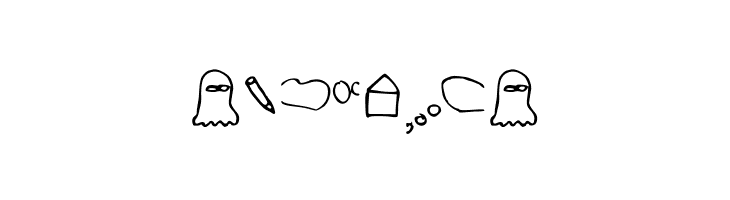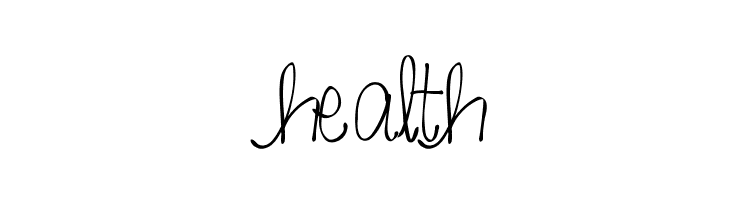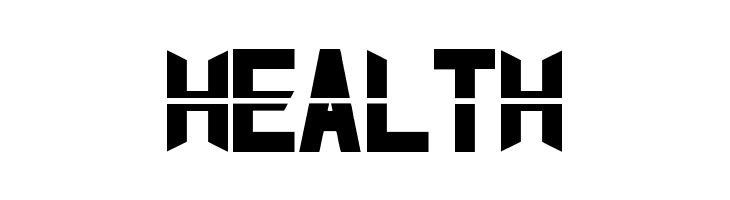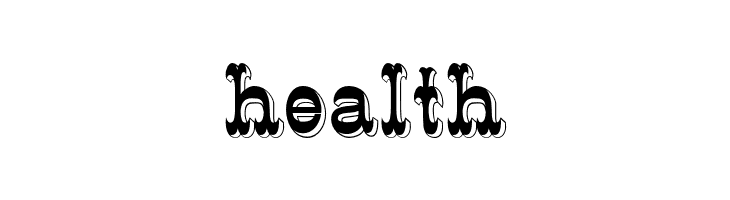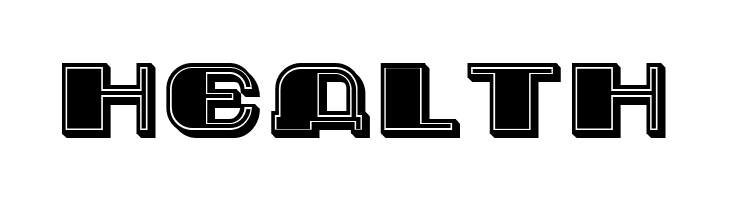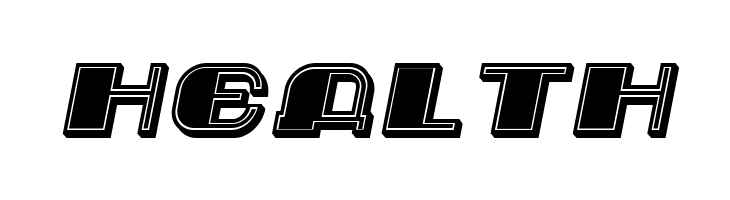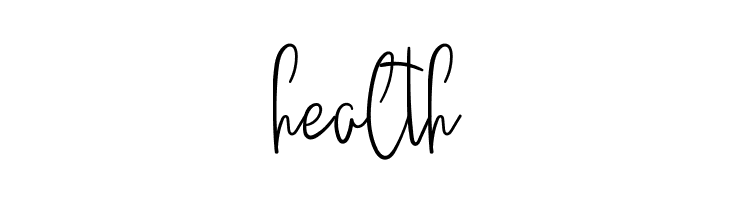
• Jurij Italic
A bold, italicized font with a three-dimensional outlined style.
• Jurij Regular
A bold, geometric font with a three-dimensional effect and strong visual impact.
• Just Be Demo Regular
A cursive, elegant font with flowing, interconnected characters.
• just symbols and stuff Medium
A playful and eclectic mix of hand-drawn symbols and doodles with a whimsical style.
• justbeautifulsimplicity
A playful and whimsical handwritten font with smooth, flowing strokes.
• JustBecause
A playful, whimsical handwritten font with tall, narrow letterforms.
• JustlyneDemo
A bold, expressive handwritten font with fluid, cursive strokes.
• Justo St
A bold, geometric font with a modern, industrial aesthetic.
• K22 Angular Text
A bold, decorative font with angular, ornate designs and intricate flourishes.
• K22 Eclair
A bold, decorative font with intricate detailing and a playful style.